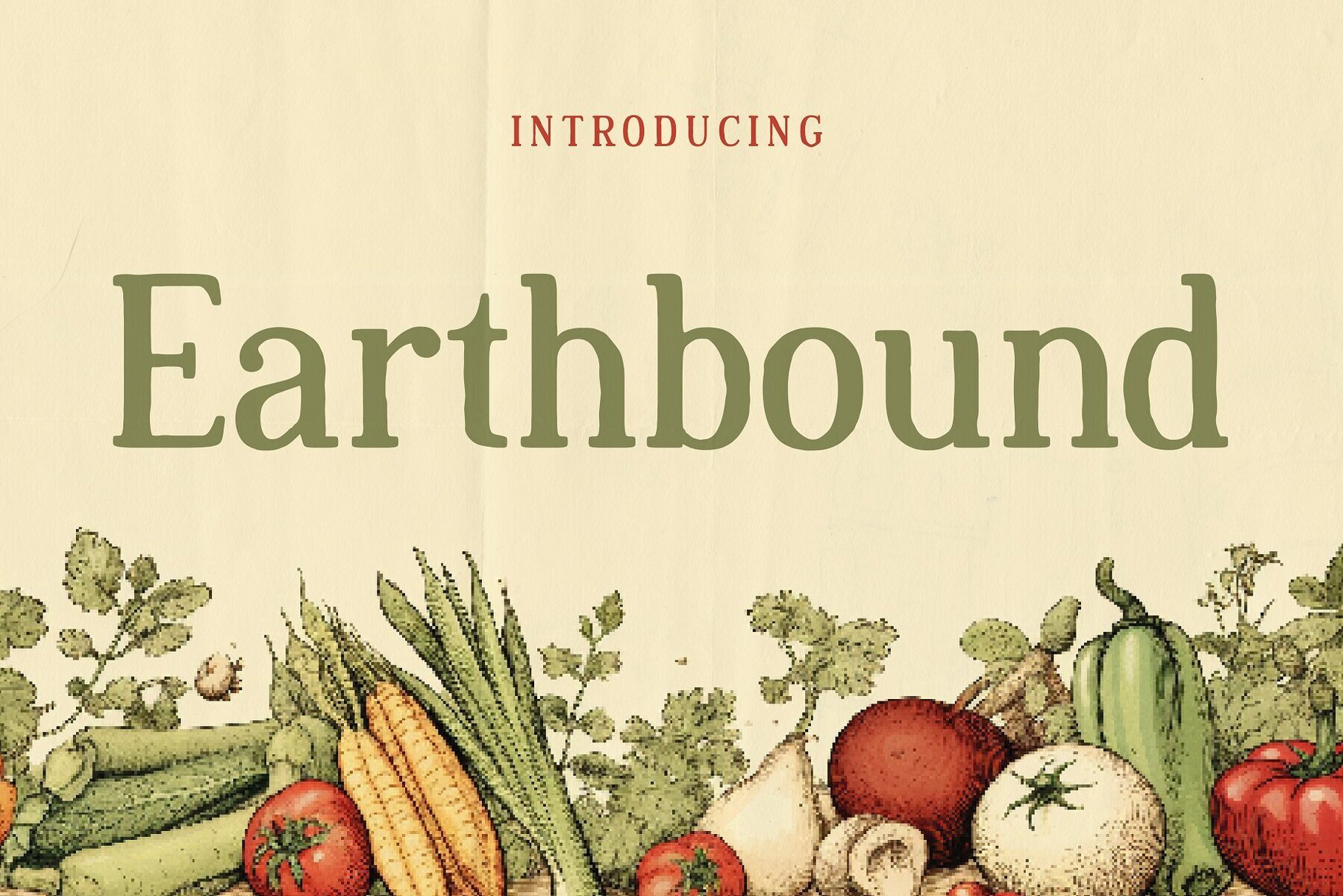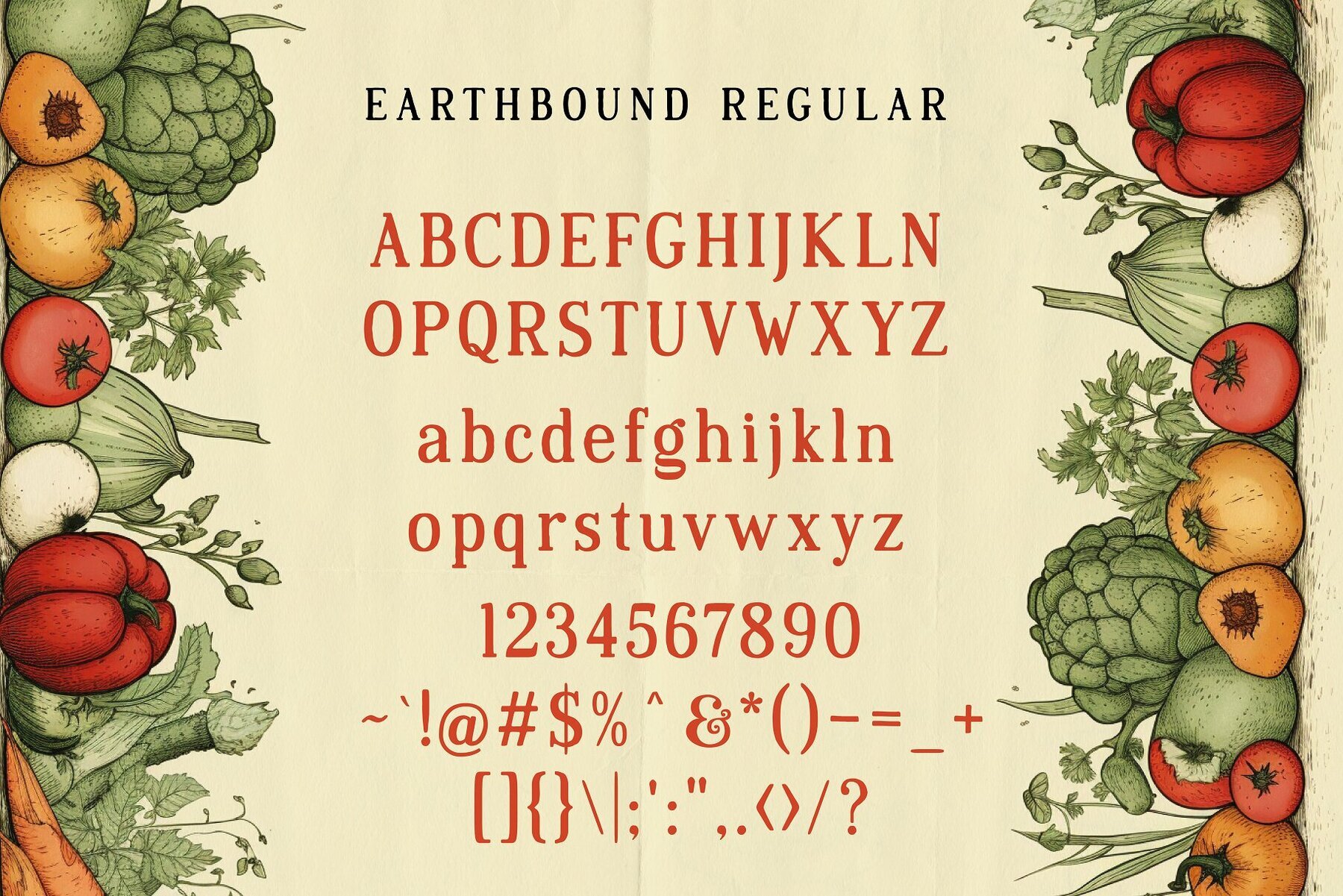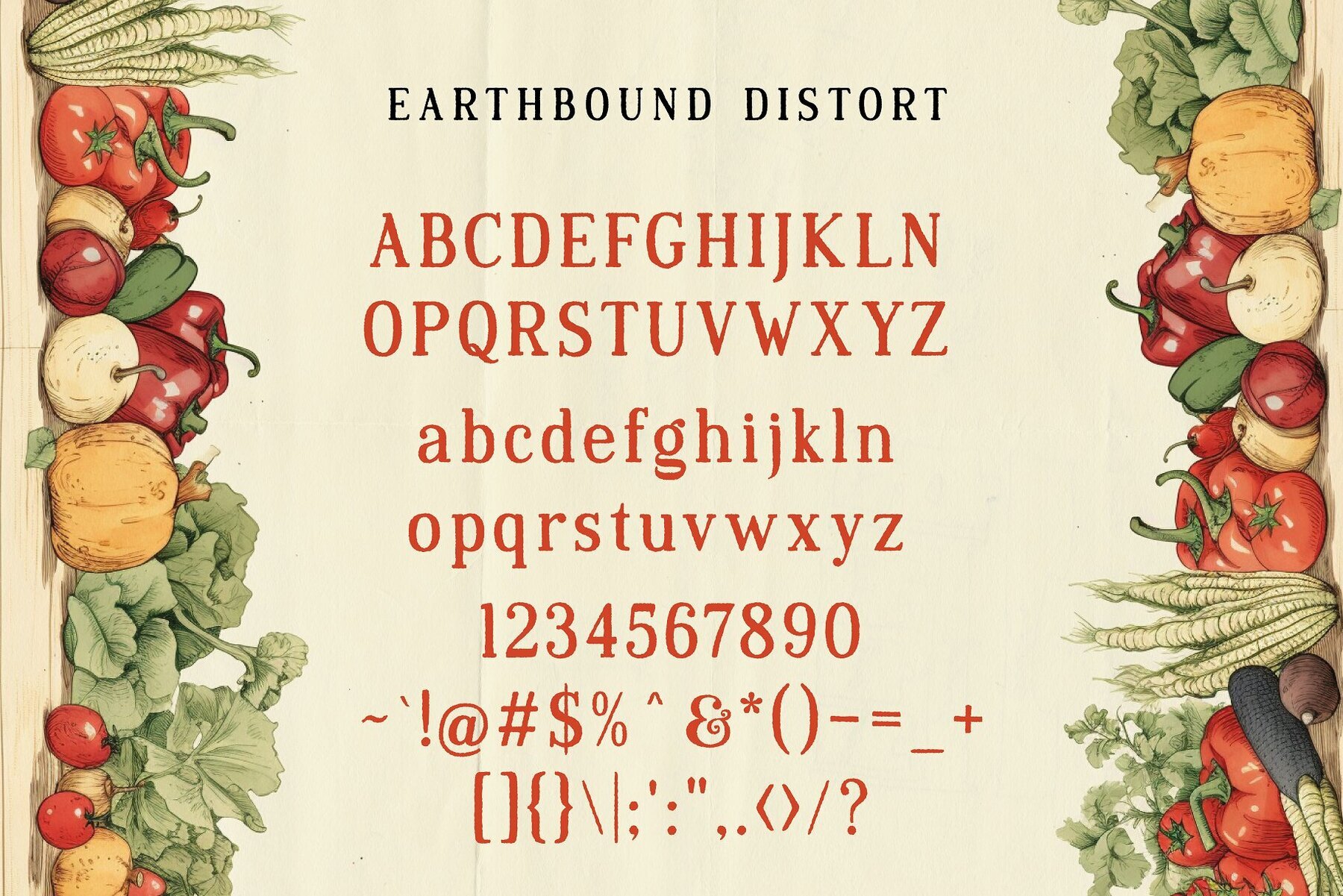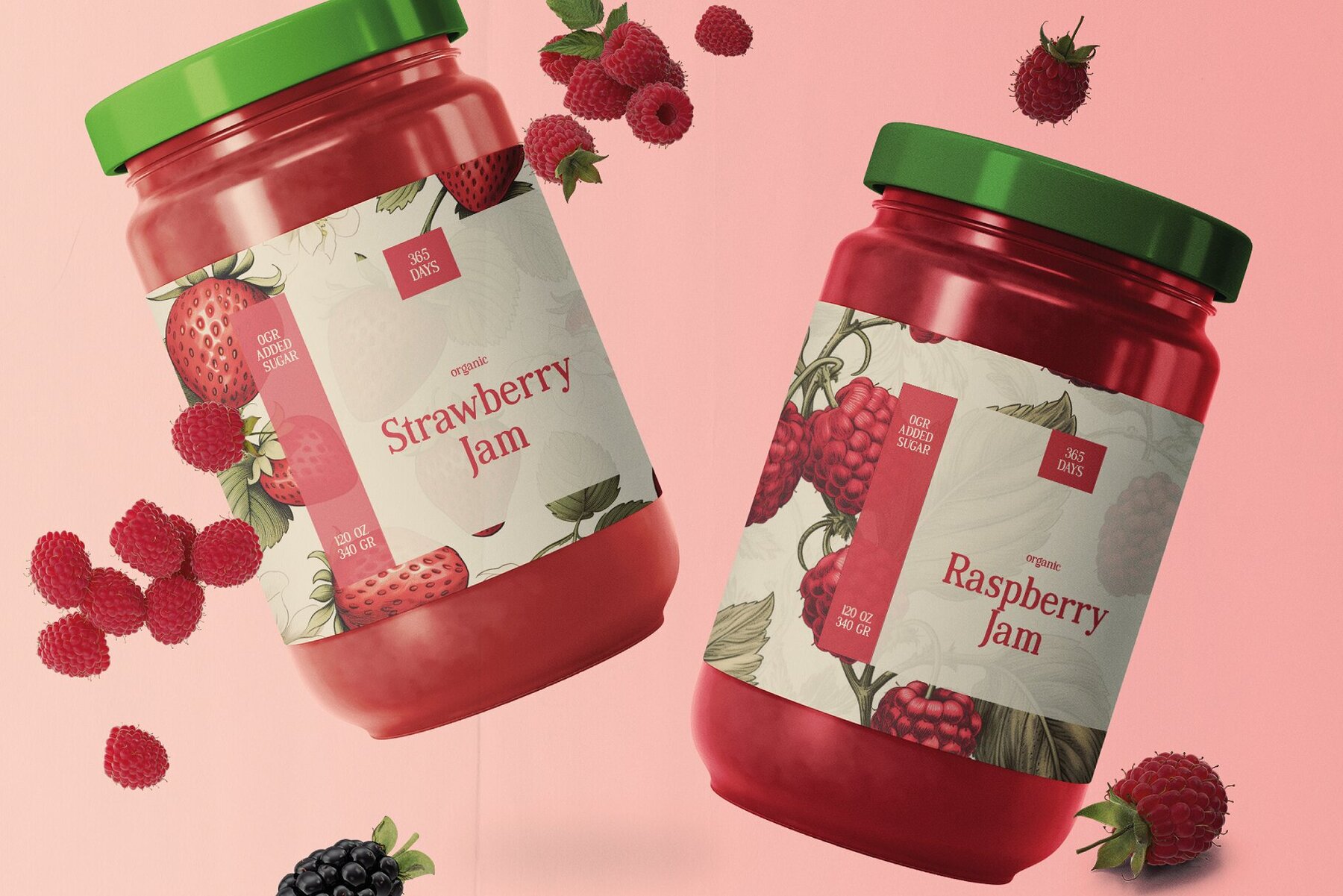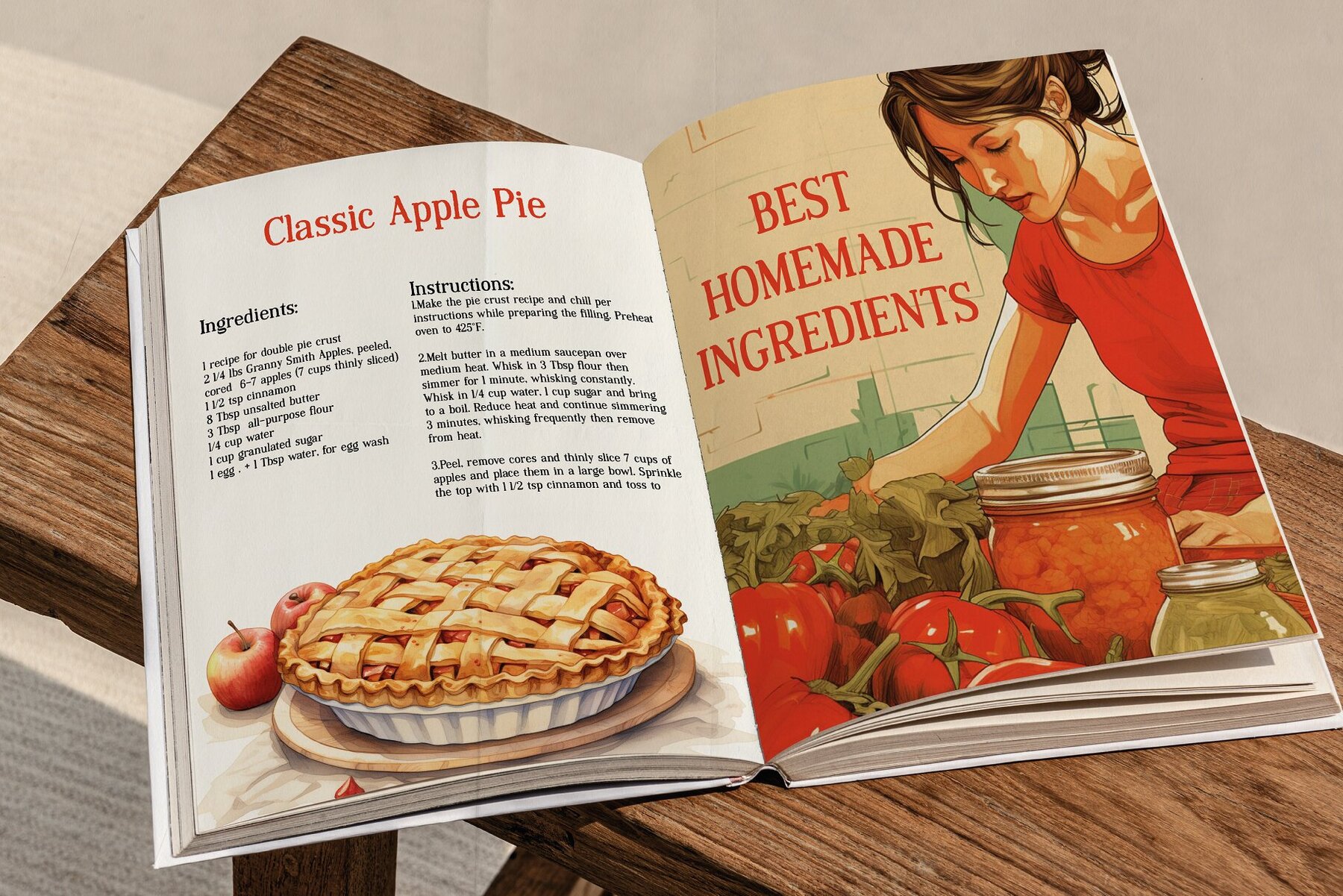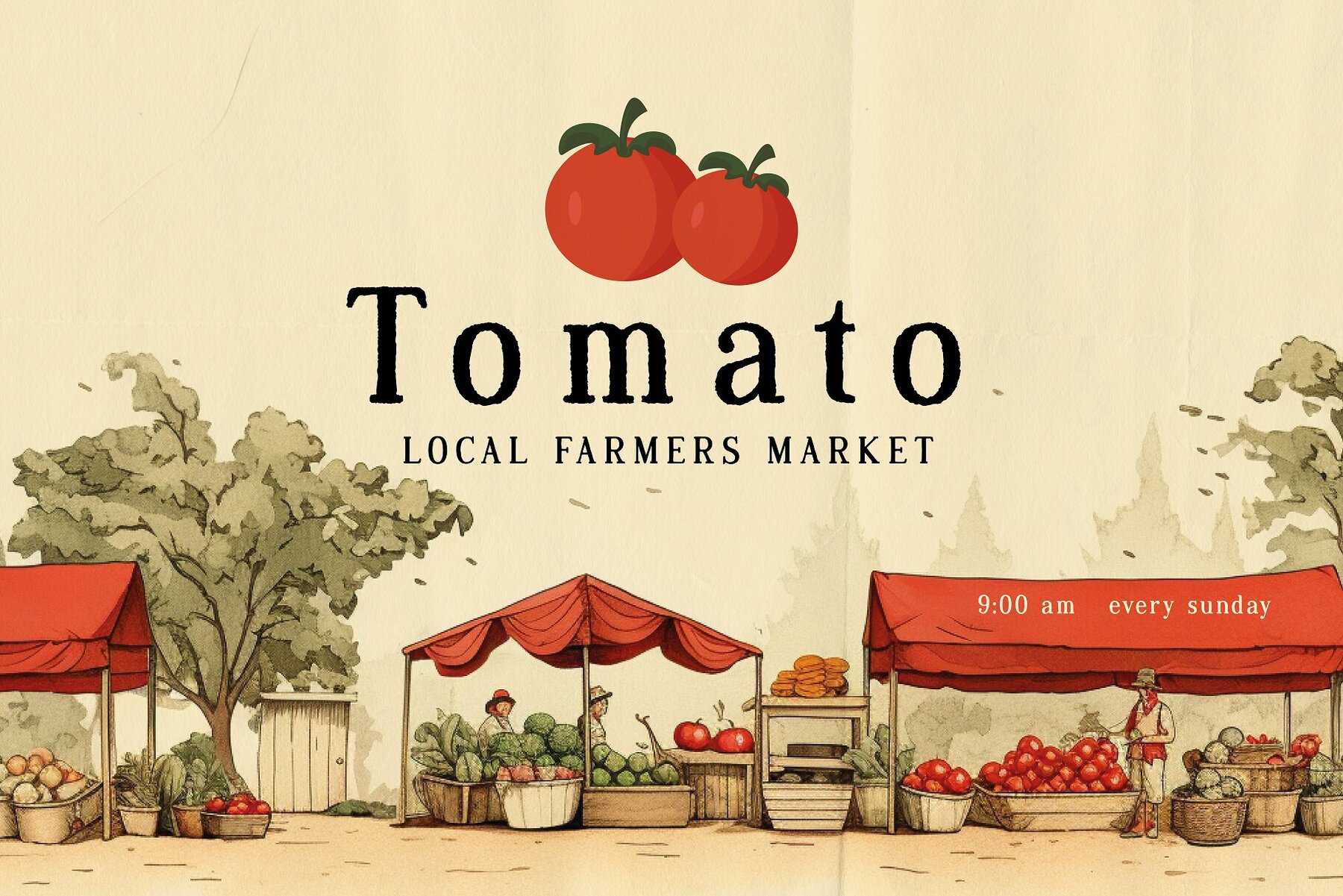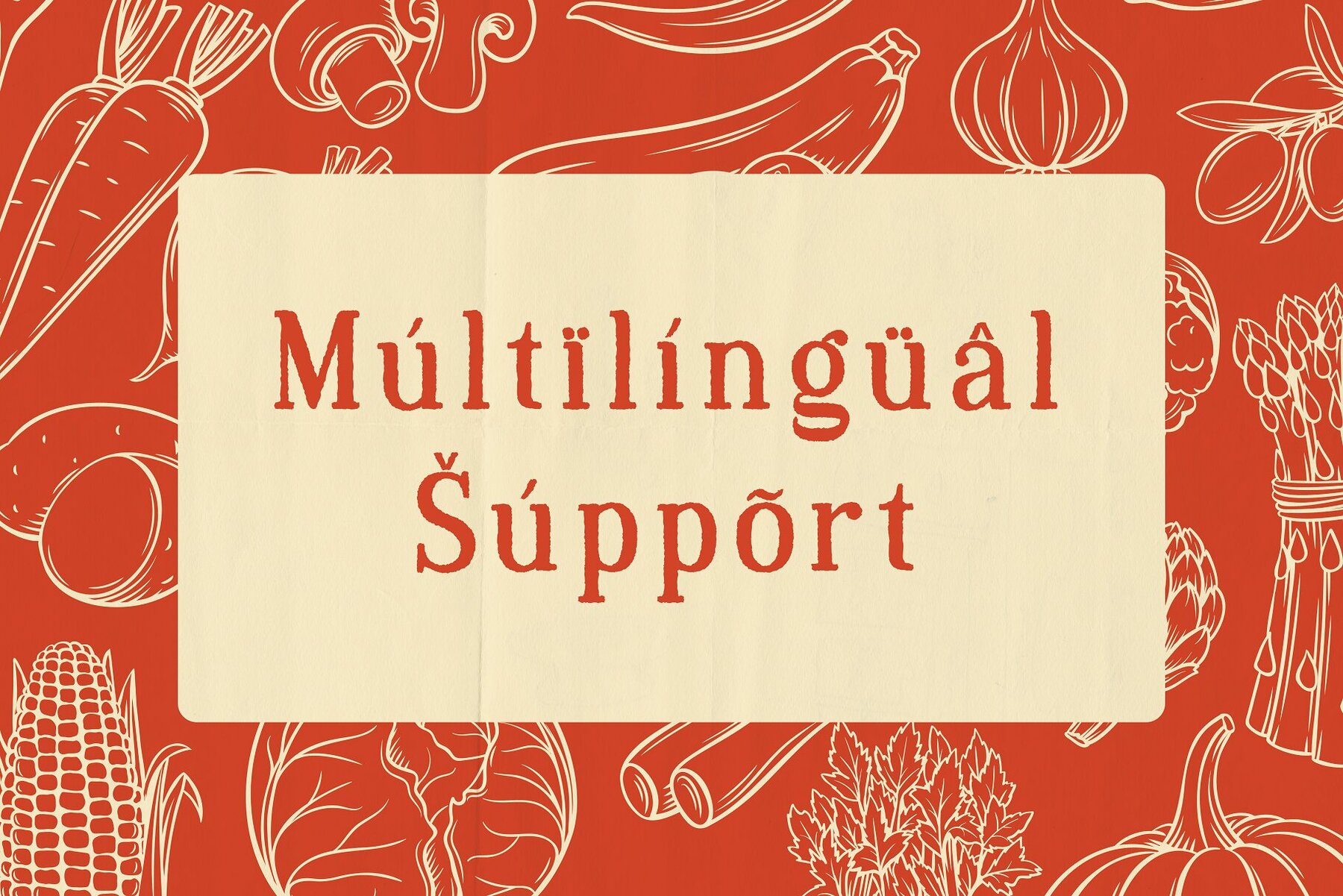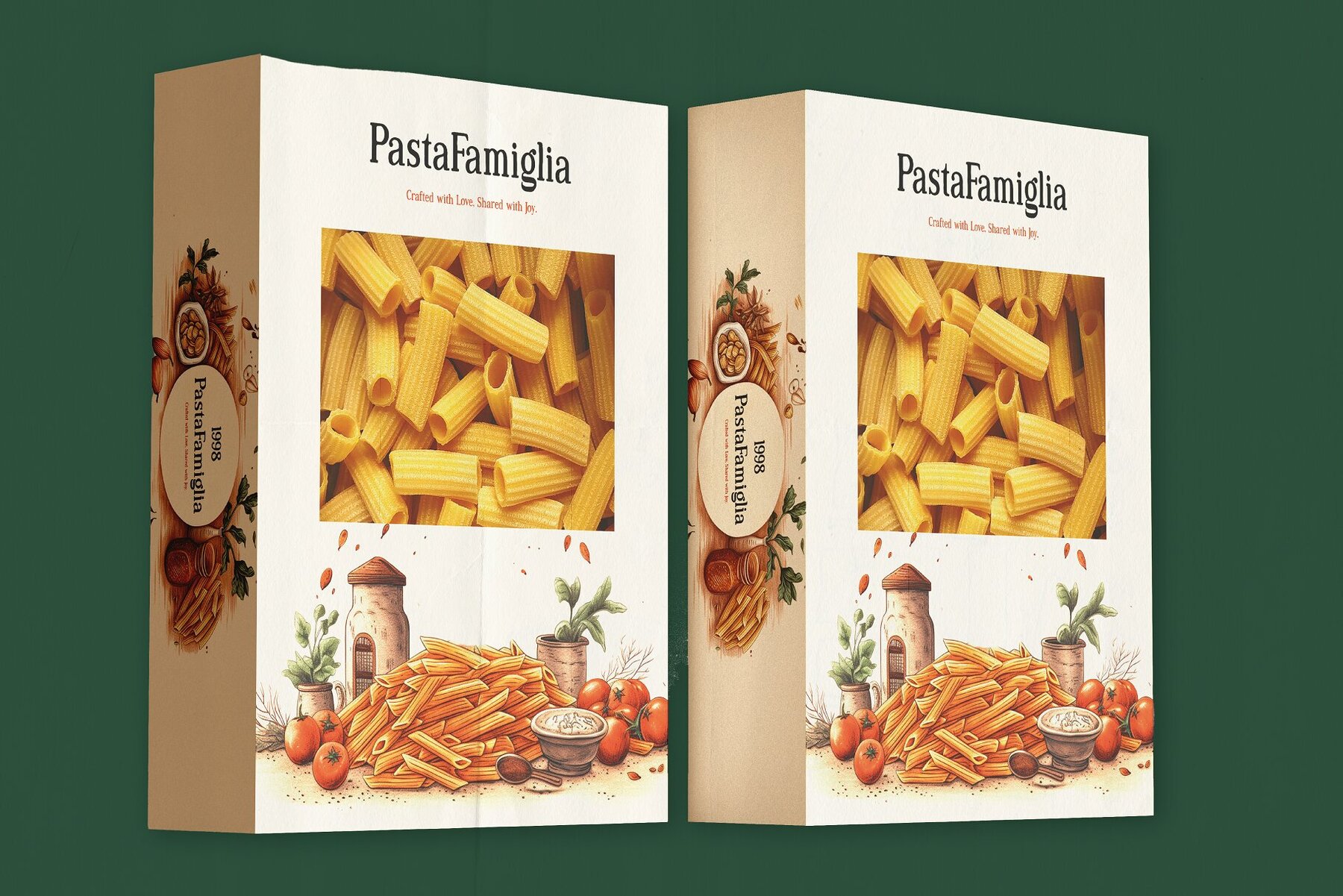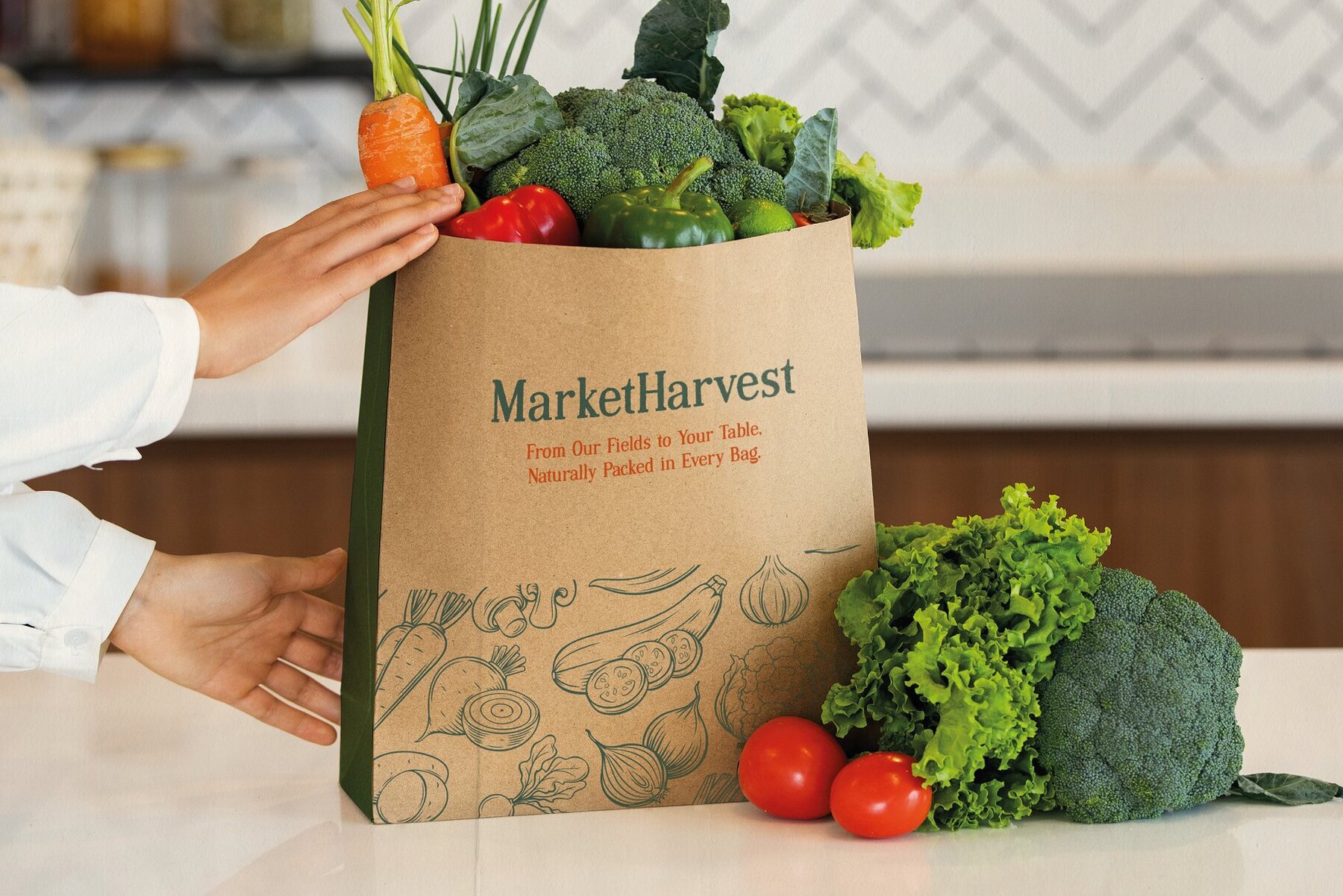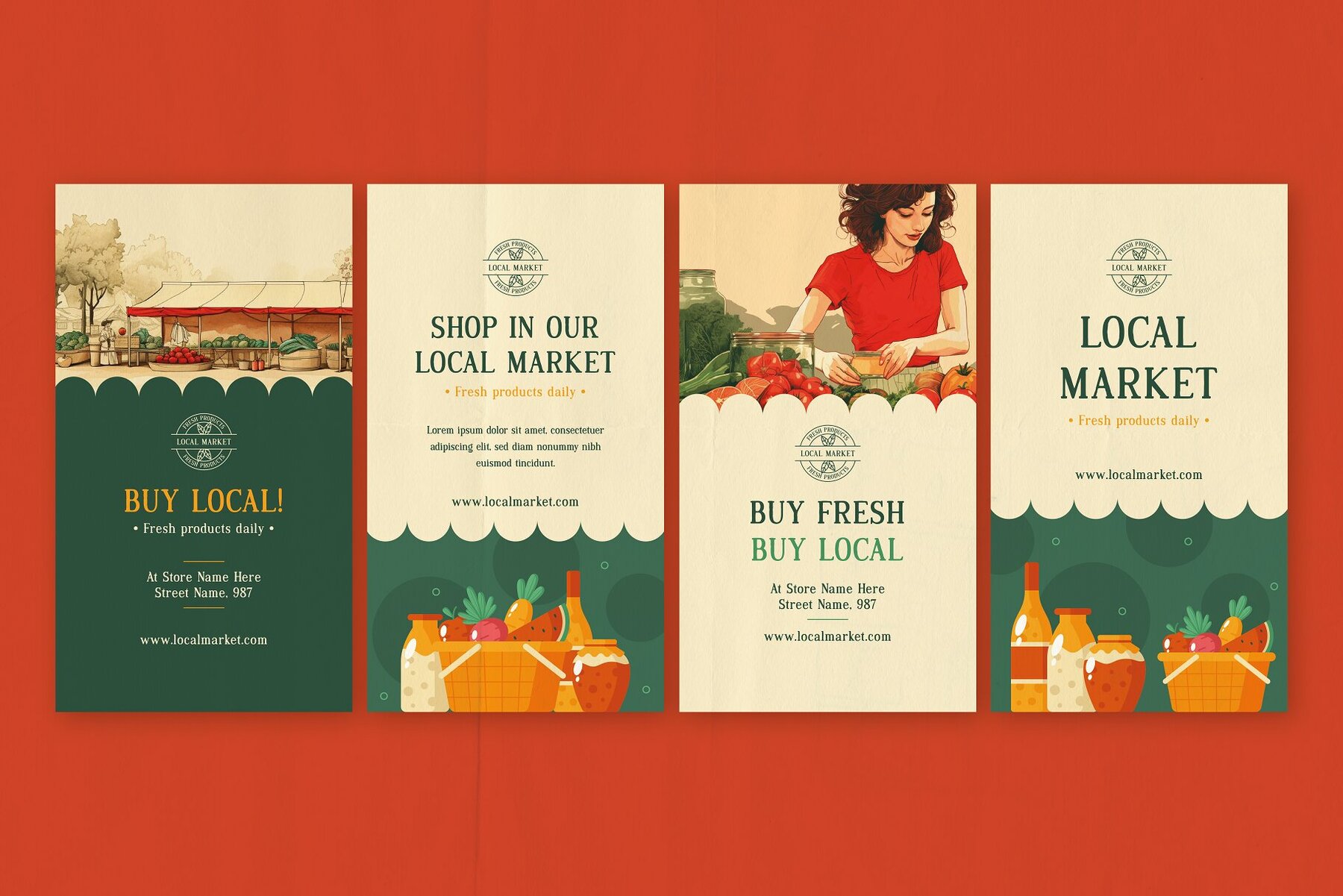
Earthbound Font
Introducing “Earthbound,” a charming and rustic typeface that captures the essence of farmsteads and country landscapes. Inspired by the warm embrace of rural life, Earthbound is a typeface that exudes a sense of simplicity, authenticity, and tranquility. Its letters are gently crafted, as if etched by hand onto wooden signs adorning barns and fences. The rounded edges and subtle imperfections of the characters evoke the feeling of a simpler time, echoing the wholesome ambiance of the countryside. Whether used for signage, packaging, or invitations, Earthbound lends a touch of nostalgia and down-to-earth appeal to any project, making it the perfect choice for those seeking a font that encapsulates the wholesome spirit of rural living.